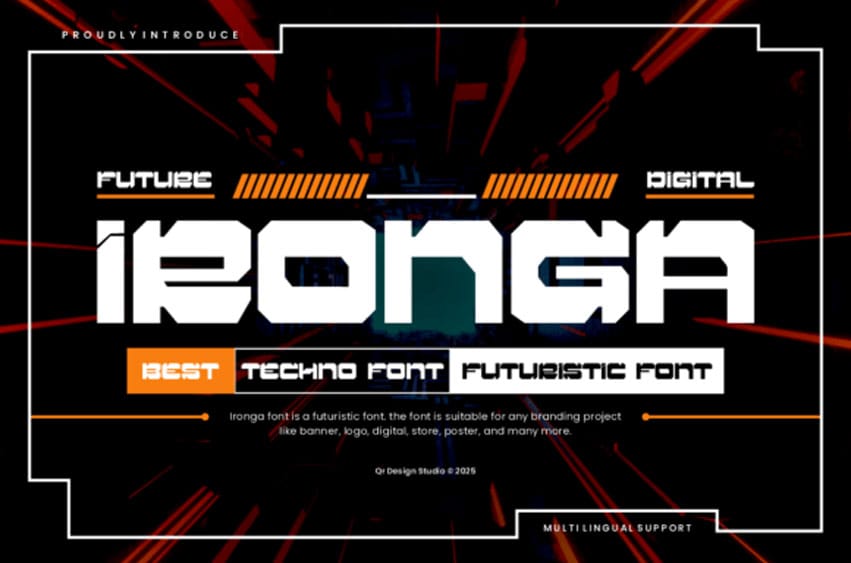
Ironga Font is a cutting-edge techno font built for futuristic design.
With its sharp lines, angular construction, and digital energy, it’s perfect for gaming titles, sci-fi posters, streaming overlays, and high-tech branding.